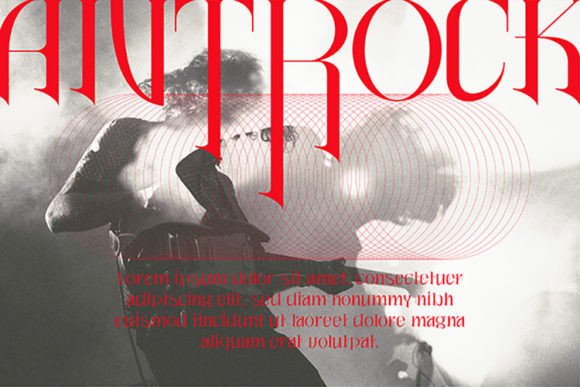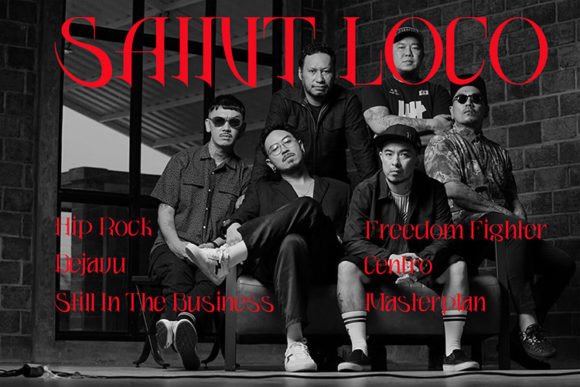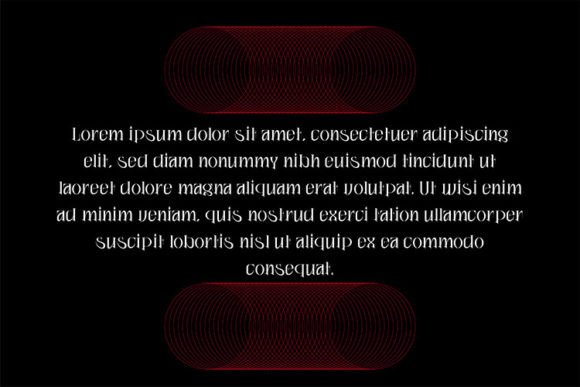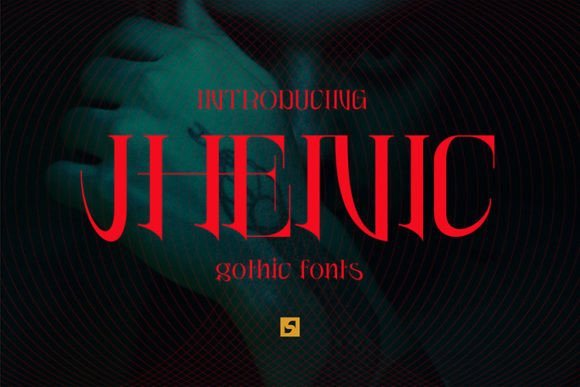
Introduction to Jhenic Font
JHENIC is an elegant, gothic-inspired serif, all-style cap serif with a set of alternative styles for every character that will make any presentation or design stand out.
You can use this font for various purposes such as magazines, branding, posters or for gothic style poster invitations .